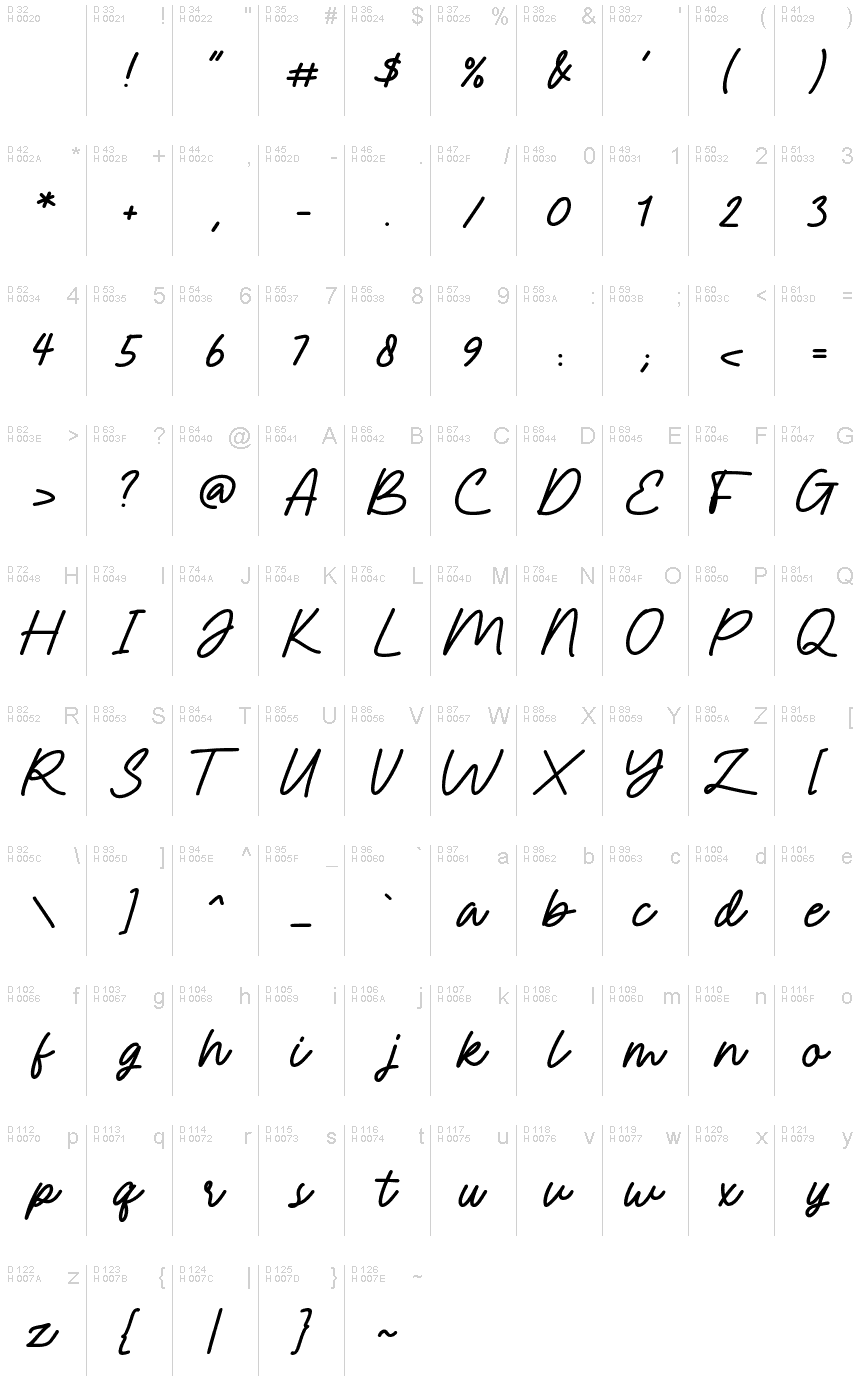
Kashafa
Introducing Kashafa, the exquisite handwritten font from Zuzulgo Studio. With its light weight and condensed width, this font is perfect for a variety of projects that require an elegant touch. From wedding invitations to branding materials, Kashafa adds a personal and sophisticated flair to any design. Its flowing strokes and delicate curves create a sense of intimacy that makes it ideal for handwritten notes or personal correspondence. Use Kashafa for your next project to bring an authentic and heartfelt touch to your design.